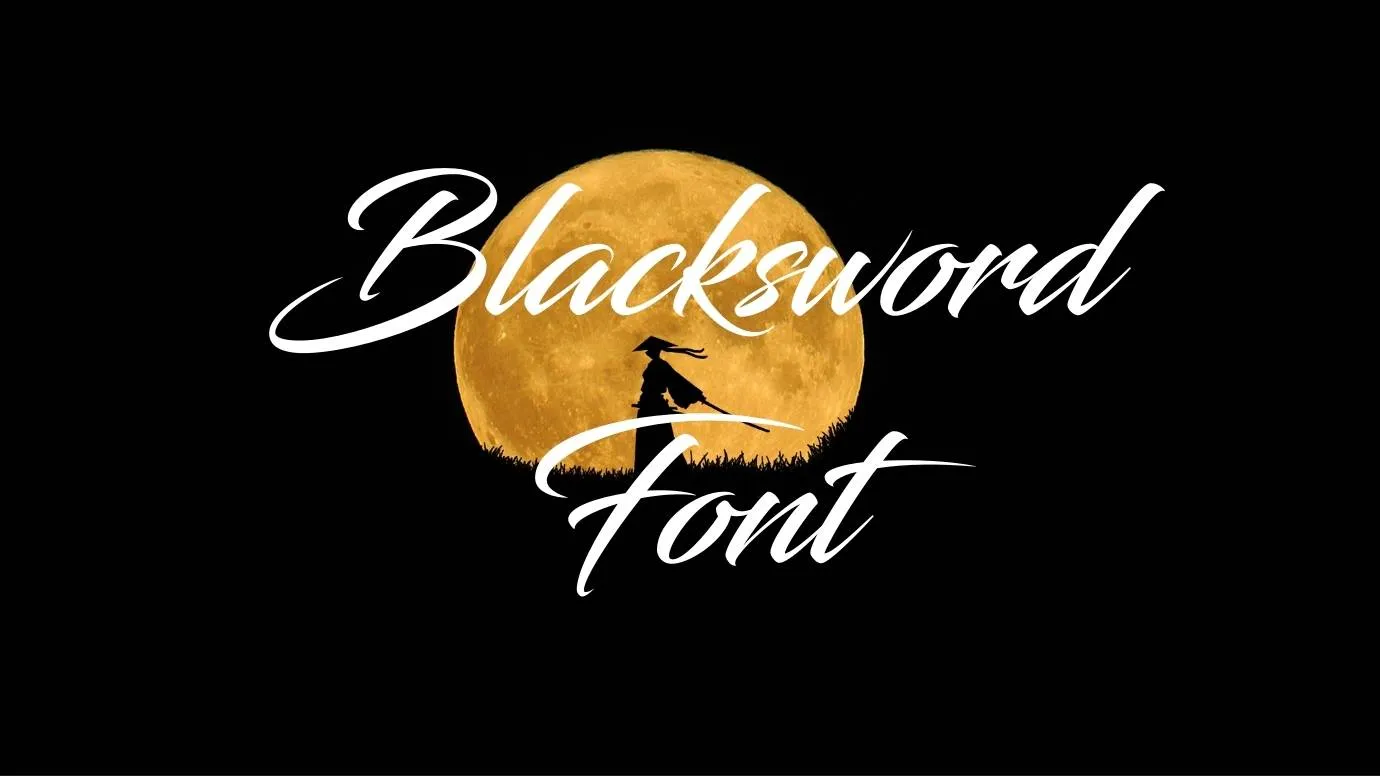
Font Introduction
Blacksword Font Family was designed by a famous font foundry named Youssef Habchi. The designer developed this font for an eye-catching and unique calligraphic style that everyone can use in their projects. You can make your designs an excellent and effective look with the help of this fantastic typeface. It is available in TTF file format that you can free download from our website easily. This typeface gives your designs a bold and normal look.
Features of Blacksword Font
- You can use this typeface for various calligraphic designs purposes. Due to its clearness and unique appearance, this typeface is used for Banners designs, GIFs, Printing projects, Themes designs, Logo designs, and so on.
- You can use this typeface for Ebook covers, Eblembs, Headings, and graphic designs. It is also suitable for many designing purposes like posted, brochures, templates, etc. You can use it for official magazines and newspapers.
- You can create cards designs like invitation cards, wedding cards, greeting cards, and many other high-quality cards designs. You can make it combination with another typeface for creating modern calligraphy designs like Model Font.
Details of Font
Name | Blacksword Font |
Type | Calligraphy |
Designer | Youssef Habchi |
What is Blacksword Font?
It is an amazing and modern calligraphy typeface that was designed by a popular foundry known as Youssef Habchi.